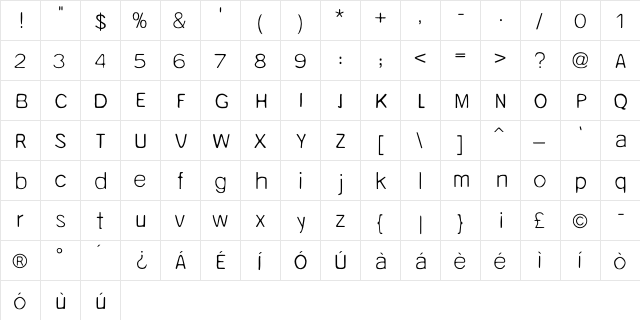
Unruly Light
Design Context for Unruly Typeface
Unruly is a composed and adaptable typeface that performs quietly and consistently across a wide range of design contexts. The delicate stroke weight brings airiness and refinement to layouts.